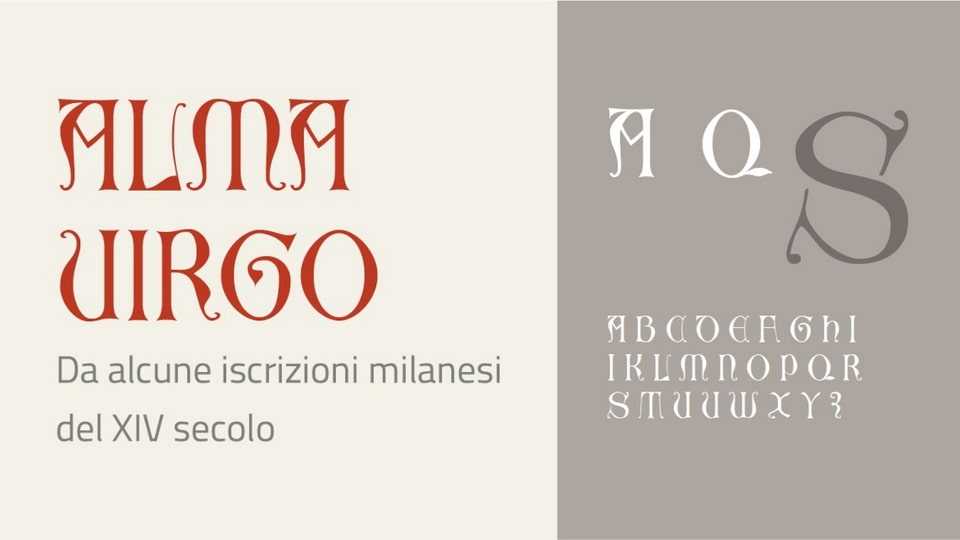
Download Alma Virgo font a decorative display typeface inspired by two Milanese inscriptions from the 14th century (one on the bell tower of San Gottardo in Corte and one on the Loggia degli Osii).
Designer: Michele Casanova